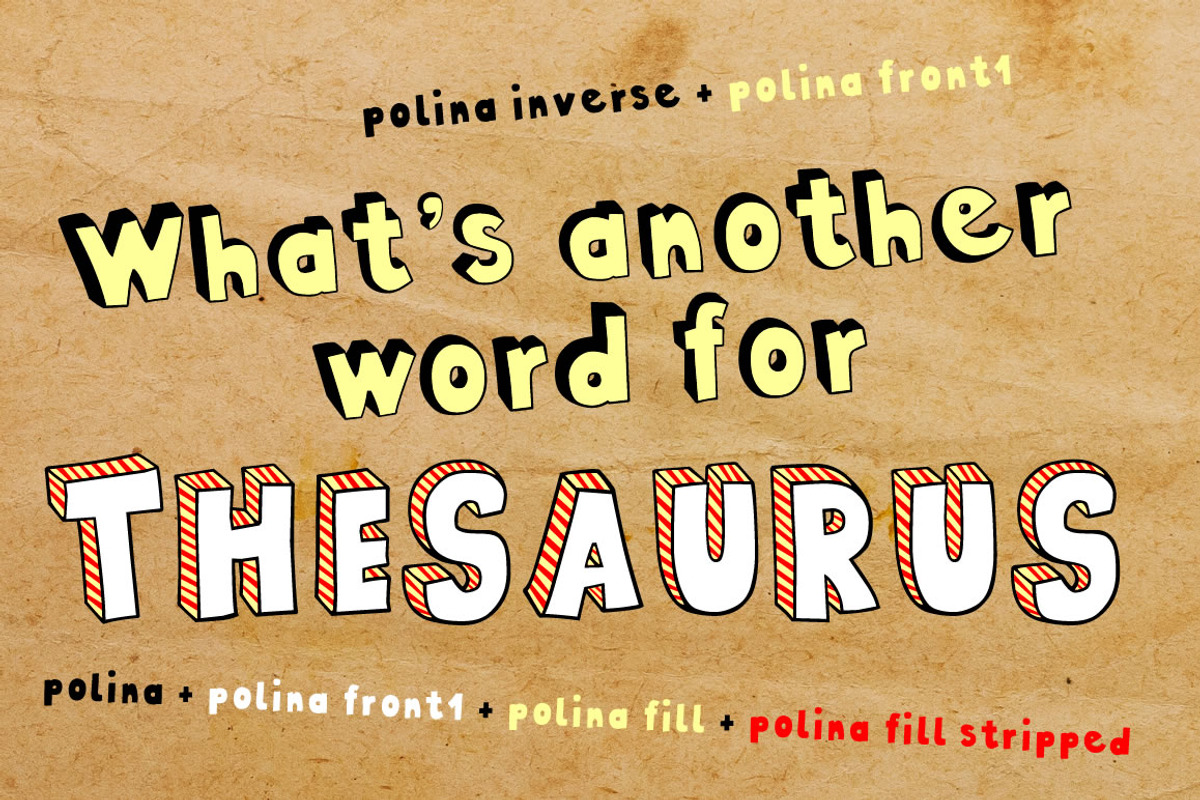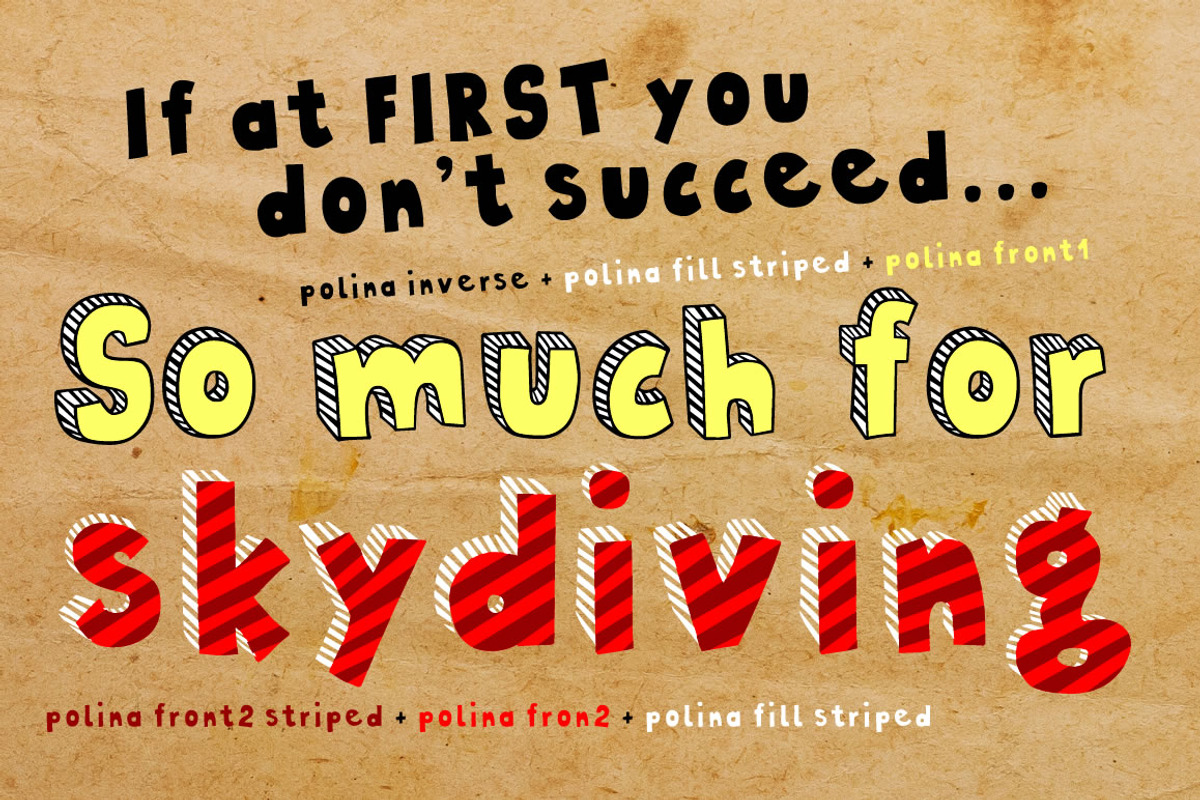
Polina family - 10 fonts
Polina family - 10 fonts by Leitmotif is a font selected for branding, posters, packaging, typography.
- Polina is a handmade, layered type family which includes several textures and shadows.